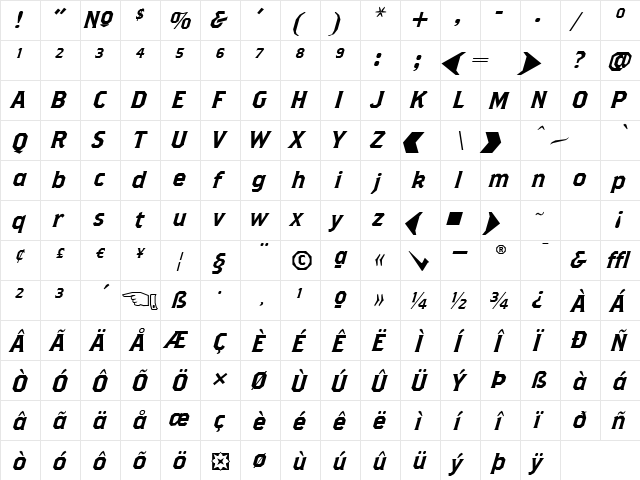
BrothersSuperSlantAlternates Regular
Design Context for BrothersSuperSlantAlternates Typeface
BrothersSuperSlantAlternates is a composed and adaptable typeface that performs quietly and consistently across a wide range of design contexts.